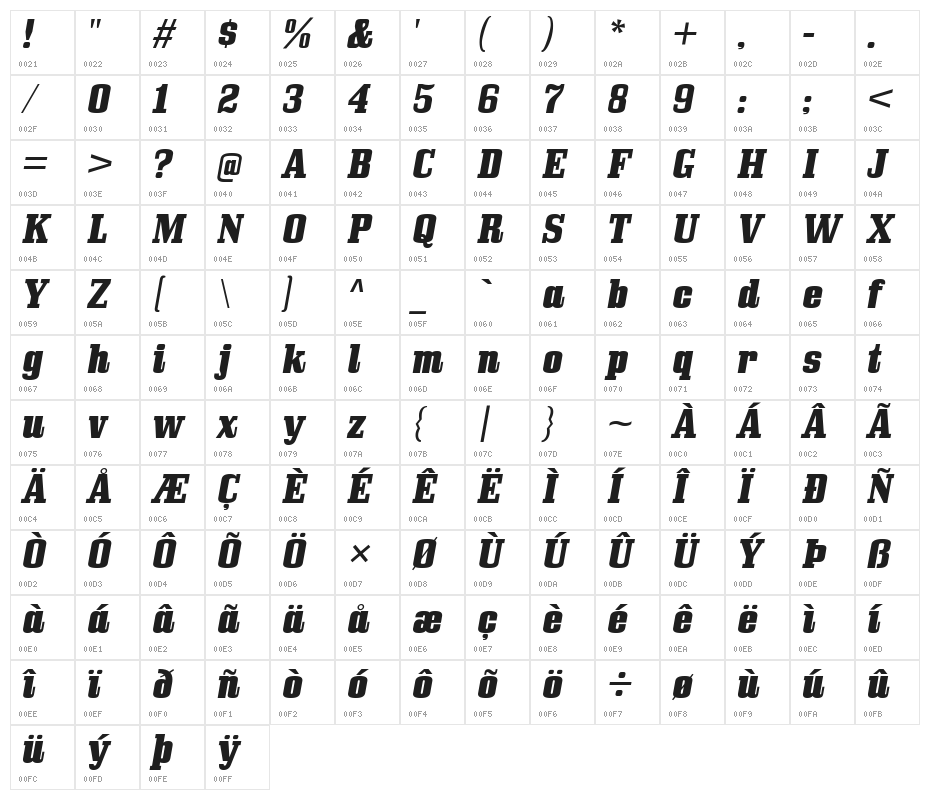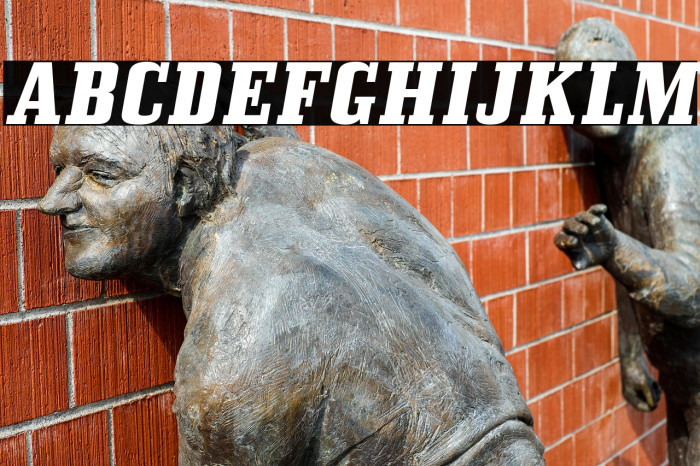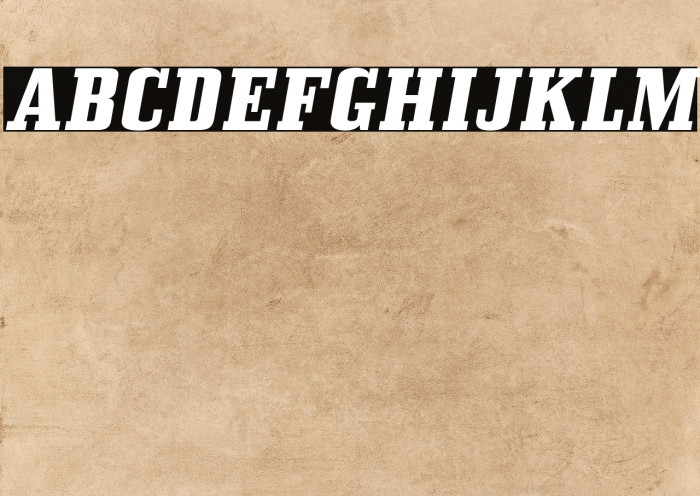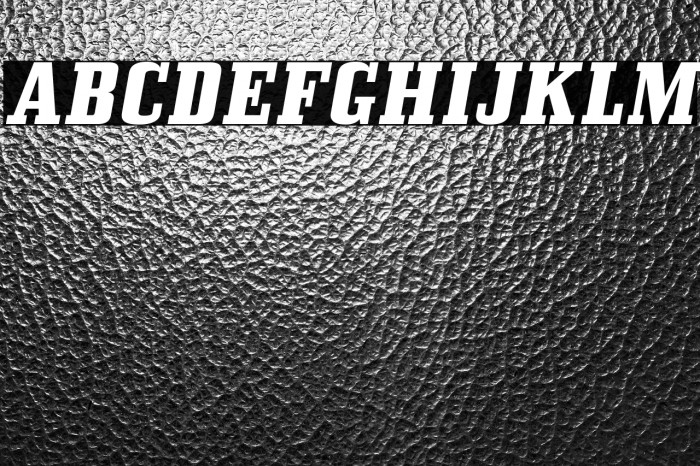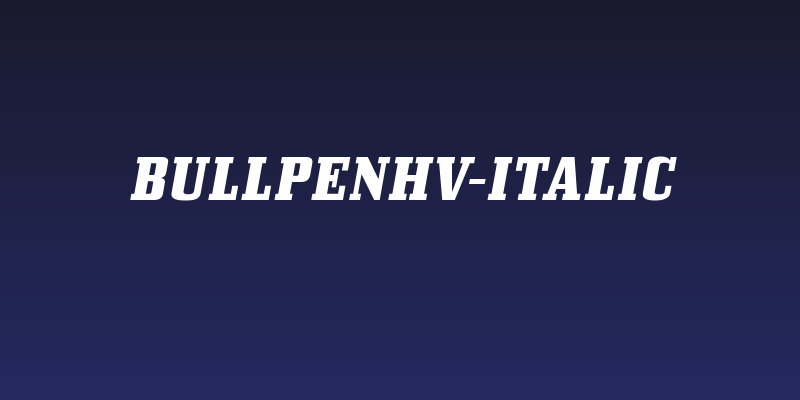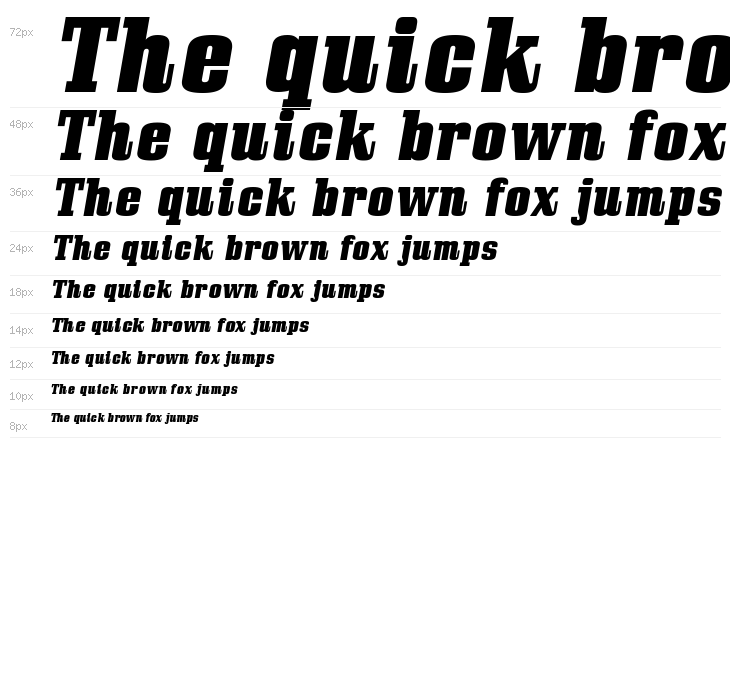
BullpenHv-Italic Font
BullpenHv-Italic Description
This font exhibits a bold and dynamic style with a strong italic slant, giving it a sense of motion and energy. The characters are robust and impactful, featuring thick strokes that convey strength and confidence. The uppercase letters are particularly prominent, with a slight curvature that adds a touch of elegance. The lowercase letters maintain a consistent style, ensuring readability while retaining the bold character of the font. Numbers and special characters are designed to match the overall aesthetic, making them suitable for various applications. The font's design is ideal for making statements, with its bold presence and italicized form creating a sense of urgency and importance.
| Proposed Projects | Ideal for sports branding, headlines, posters, and advertising where a strong, energetic impact is desired. |